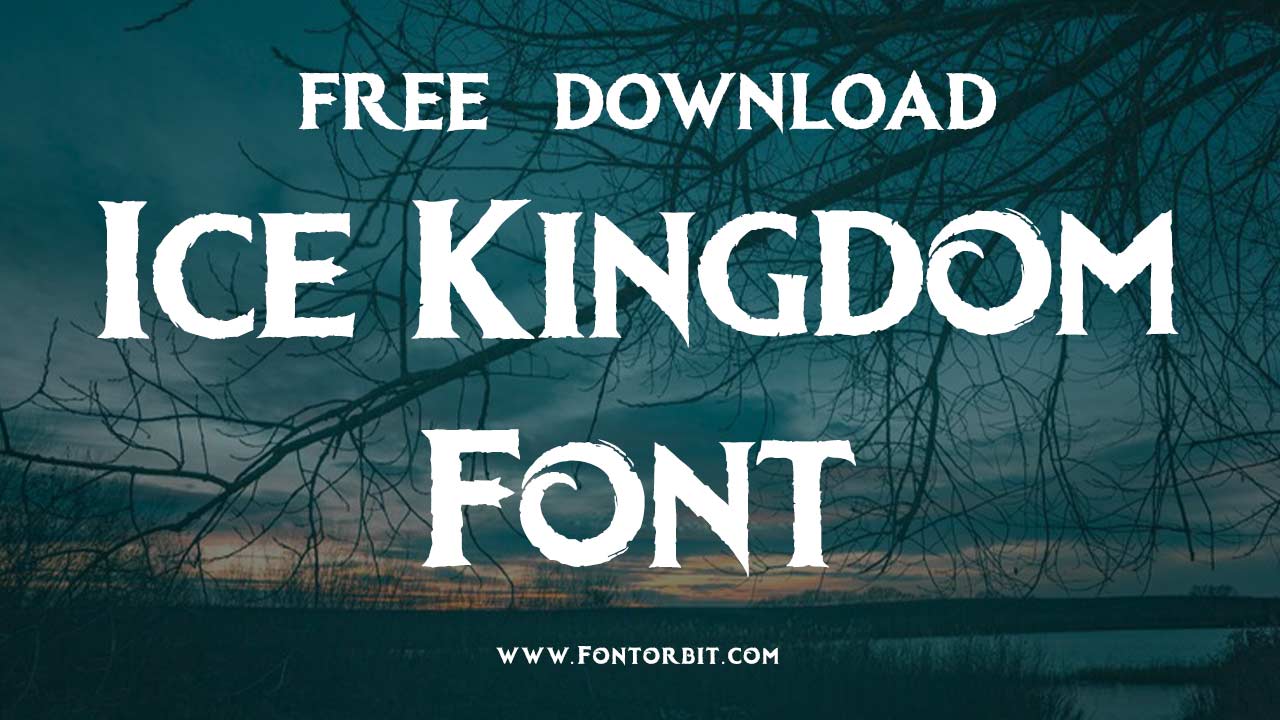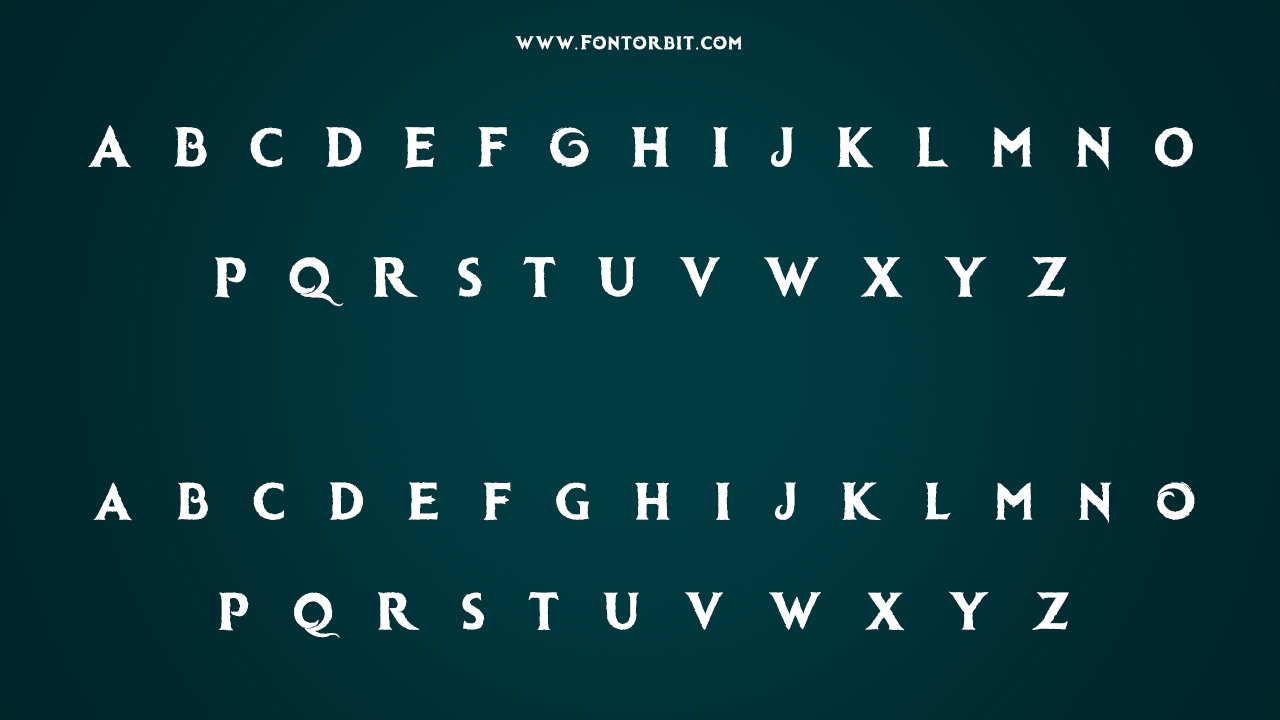
The Ice Kingdom Font is a bold and rough style typeface. Renowned graphic designer Kustren designed The Ice Kingdom Font, which was published on June 17, 2024.
Whether you’re working on children’s books, social media graphics, or eye-catching posters, Ice Kingdom Font adds a distinctive flair to your designs.
The Ice Kingdom Font is widely used in YouTube thumbnails, social media posts, book covers, and video game graphics. Its distinctive style adds a unique flair to these platforms, enhancing visual appeal and engagement across various media. The Ice Kingdom Font is perfect for various projects, including:
- Children’s books
- Advertisements
- Social media graphics
- T-shirt designs
- Product packaging
A bold, rough-style font designed by Kustren is available in three weights.
When pairing Ice Kingdom fonts with images, use visuals that evoke an eternal winter theme, such as snowy landscapes or characters like the Snow Queen.
Ice Kingdom Font in print media offers a unique style with its decorative font qualities, special characters, and uppercase letters.
The font closest to Ice Kingdom is the Frozen Font or other gothic fonts with a similar icy aesthetic, such as those used in Walt Disney Animation Studios designs.